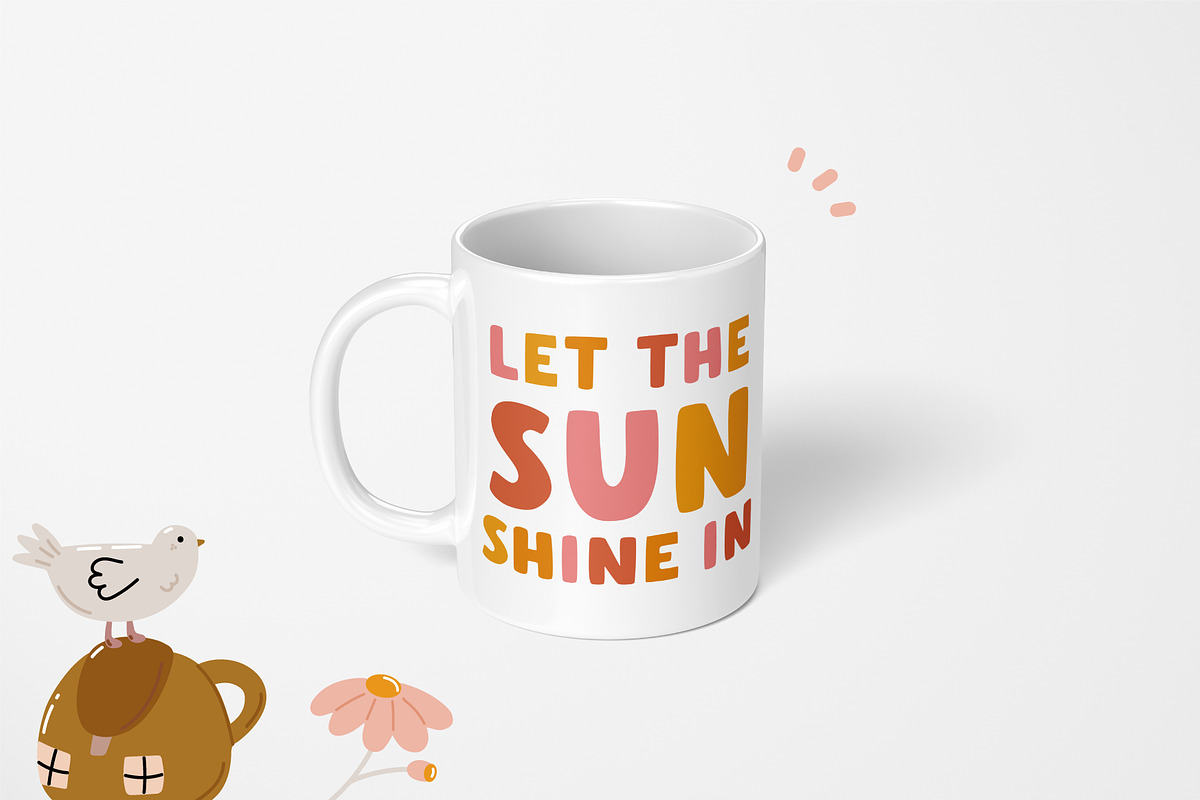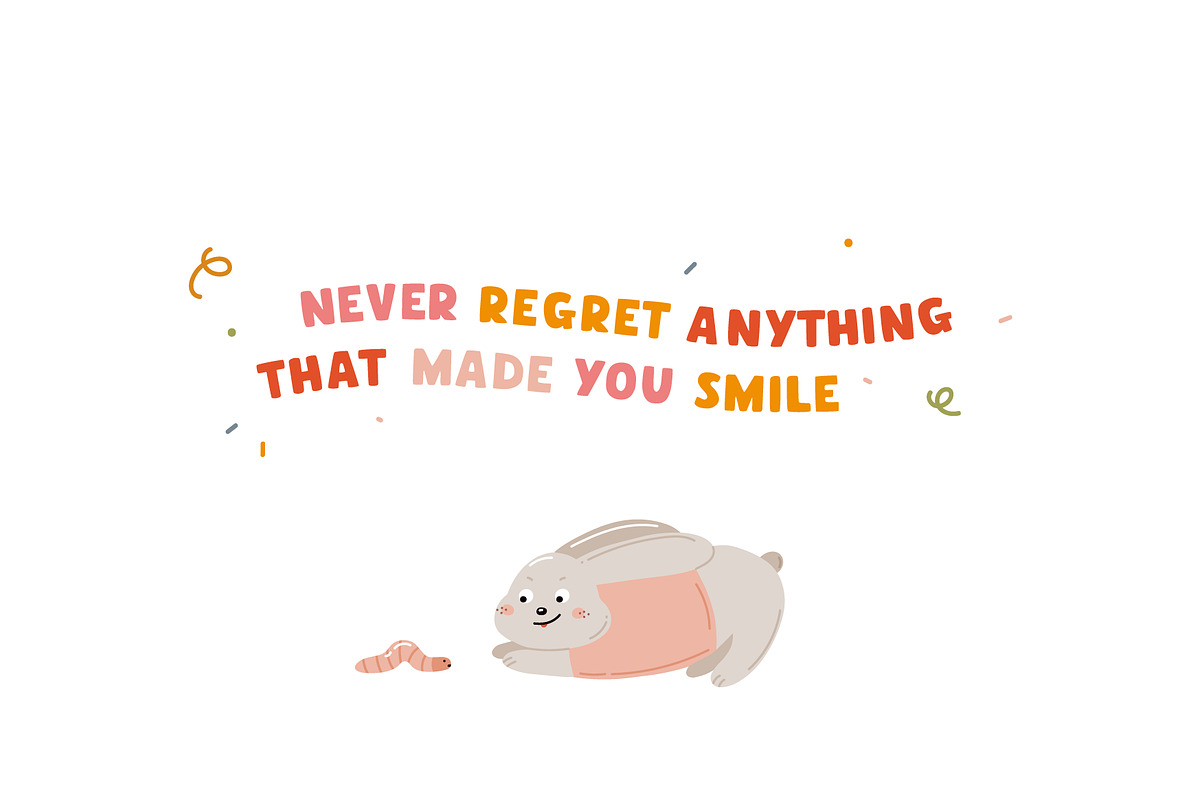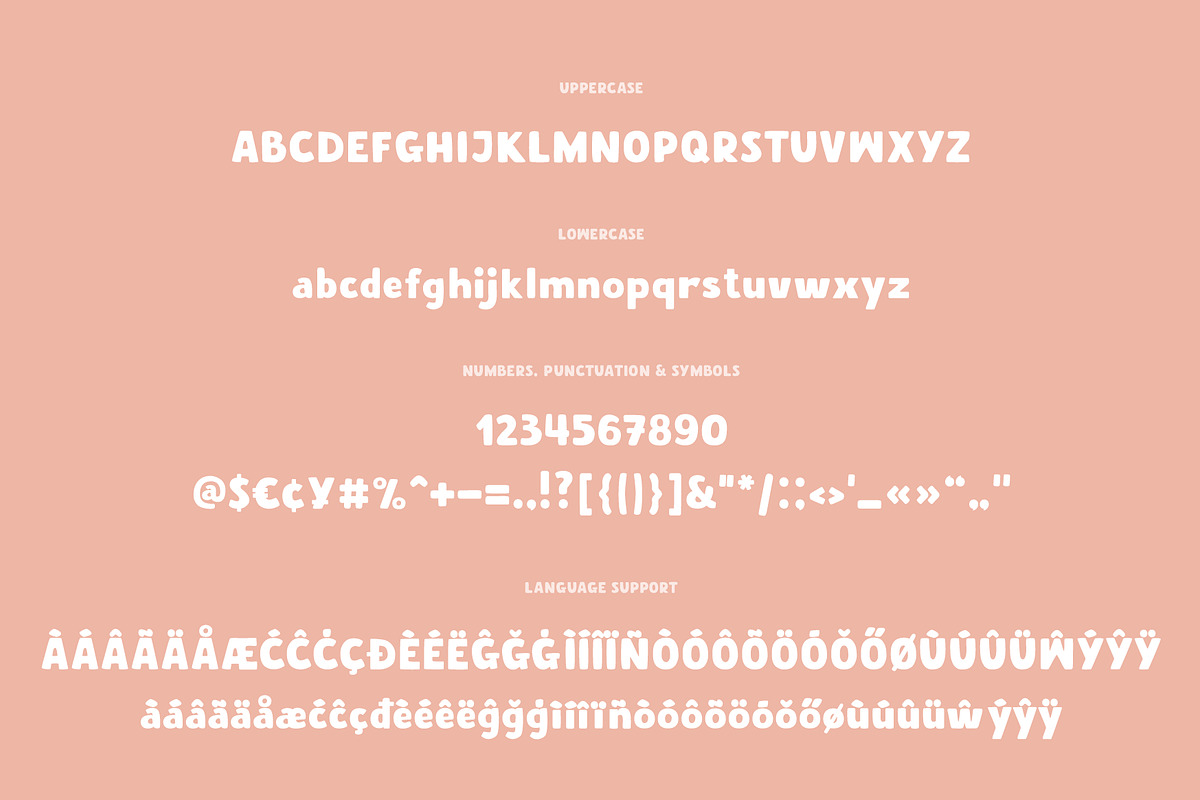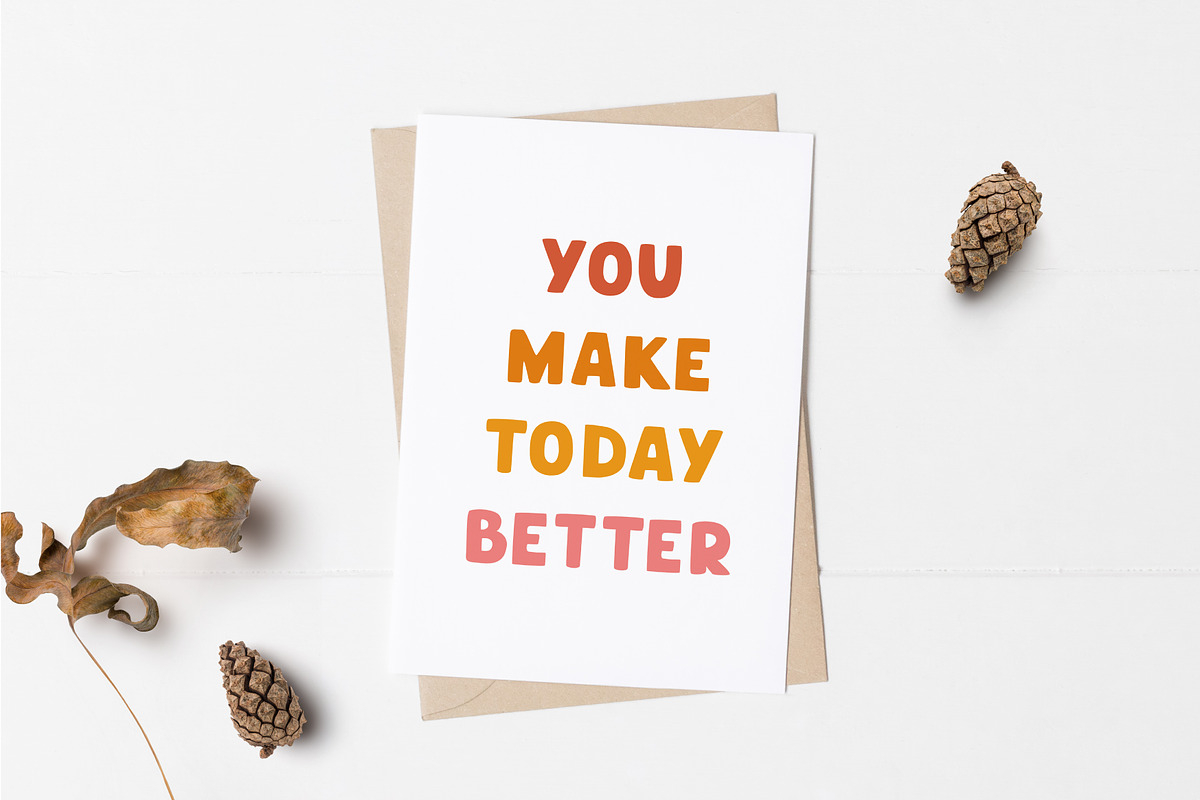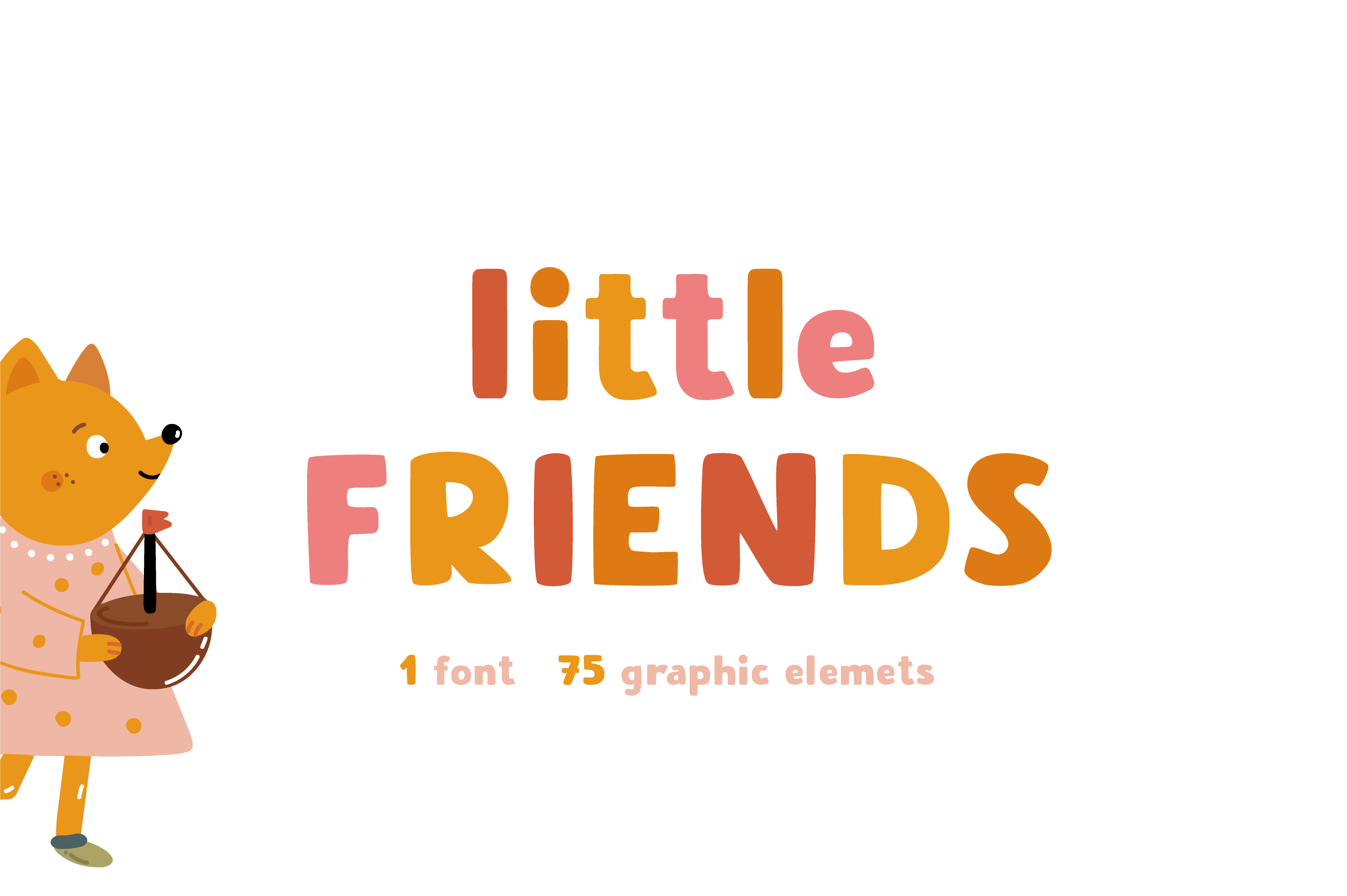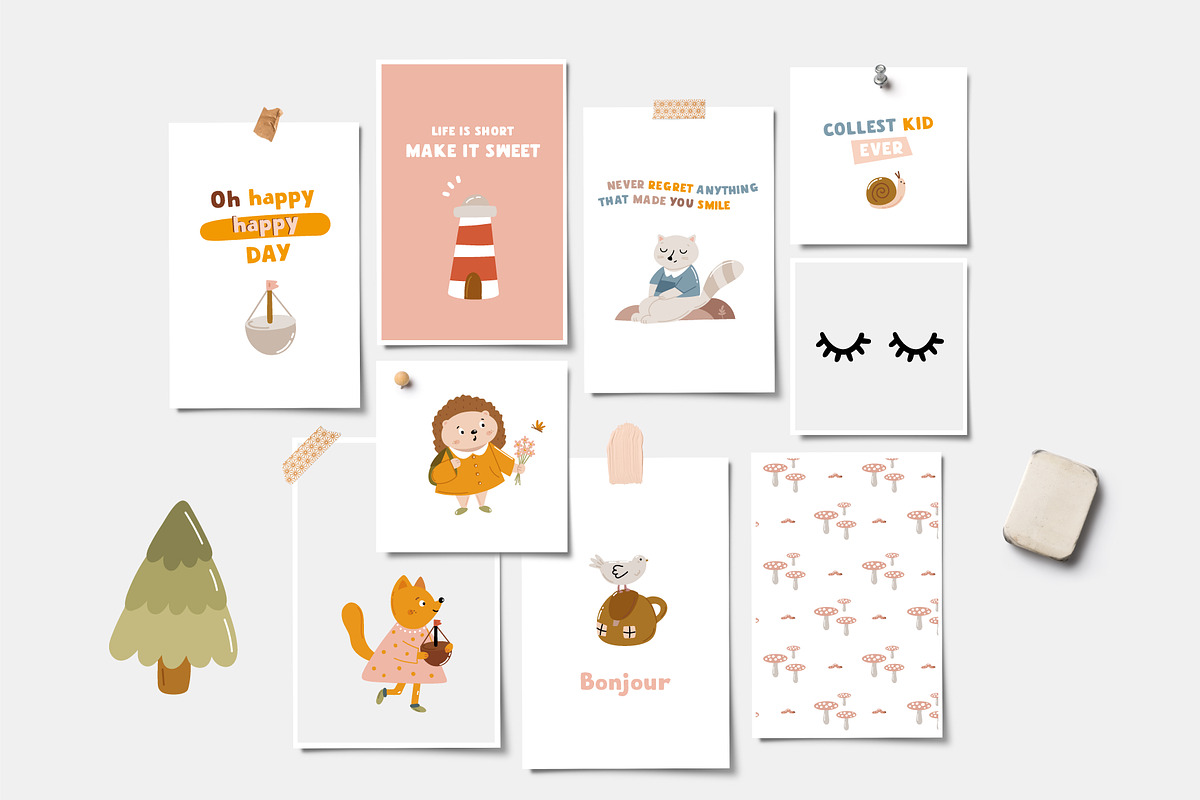
Little friends | Hand drawn font
Little friends - playful hand-drawn typeface. Use for logos, quotes, invitations, greeting cards, journals, posters, baby clothing and more. This font will make your design looks great and fun!